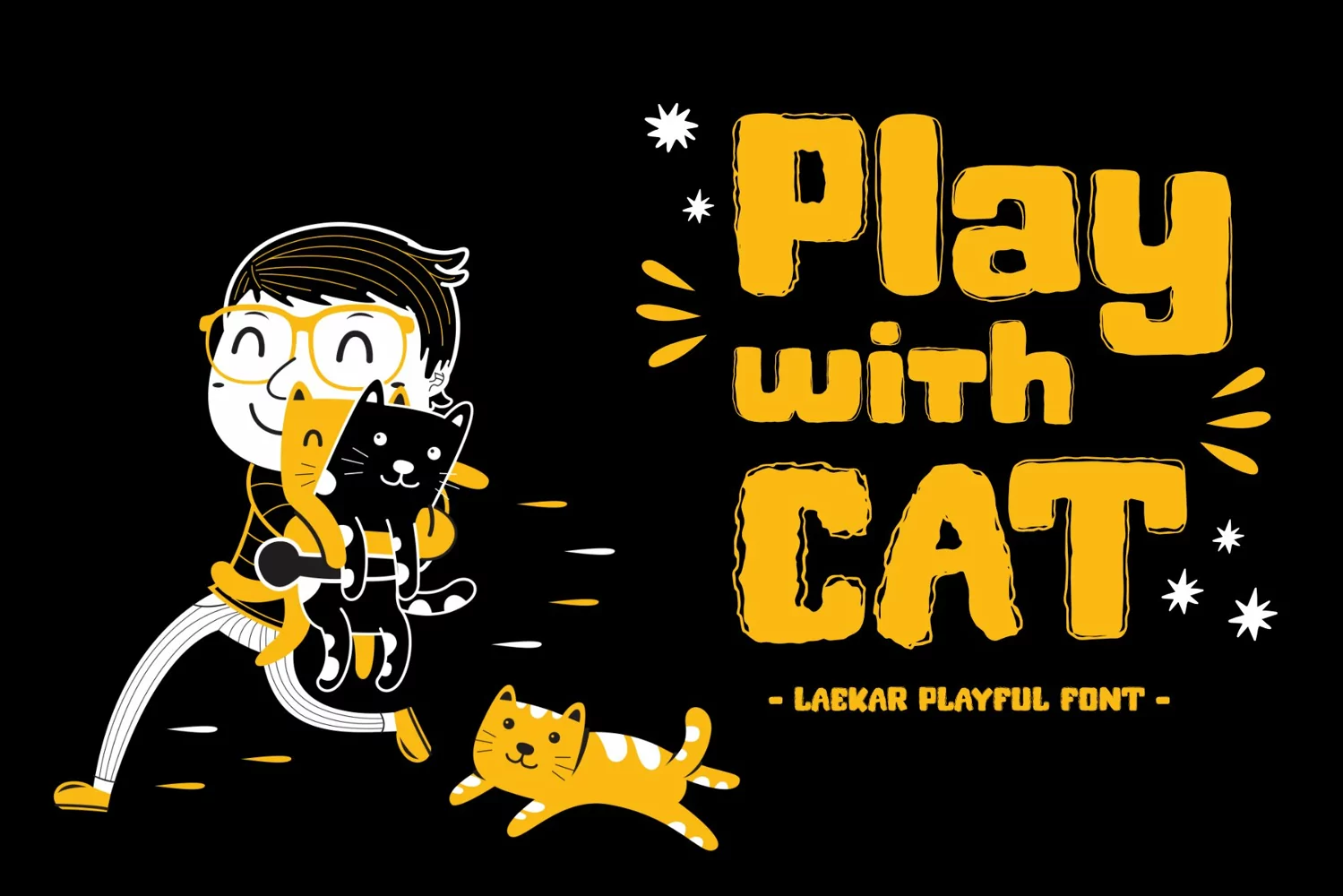
**Laekar Font**
This pair was inspired by the kids poster design that i saw on some coffee shop, It was crafted by hand specially to add natural handmade feeling in its brand identity than i make it clean with pentool.
Laekar Font is very good looking in logo, labels, t-shirt prints, product packaging, invitations, advertising and others.